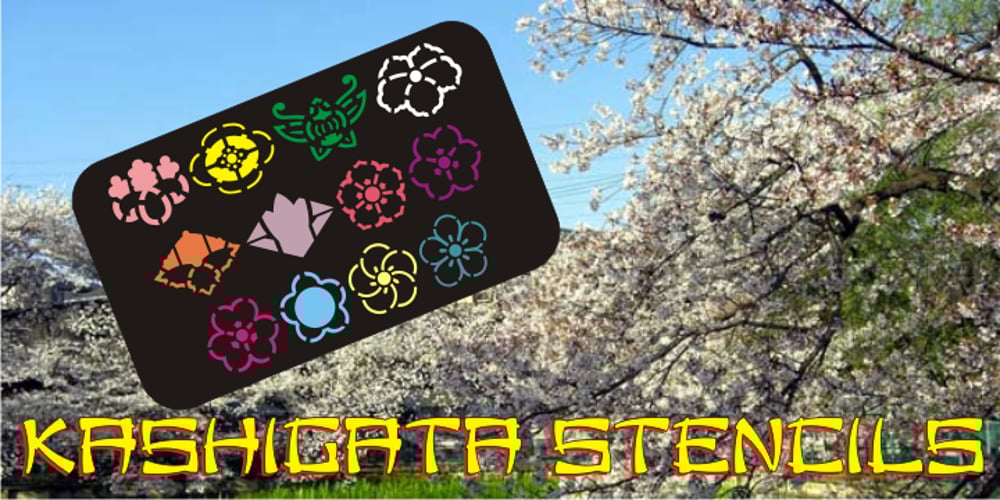
Kashigata Stencils JNL
Kashigata Stencils JNL font
Kashigata Stencils JNL Font Family was designed by Jeff Levine and published by Jeff Levine. Kashigata Stencils JNL contains 1 styles and family package options. Kashigata Stencils JNL is a collection of 52 beautiful Japanese stencil images used for decorating sugar cakes to honor deceased family members with the crest of that family. Re-drawn from images of some vintage stencils spotted at an online craft and collector’s site, these wonderful designs were created during the Showa Period of Japan’s history and bring the charm of the Far East to your creative projects. According to Wikipedia, The Showa period (literally “period of enlightened peace/harmony”), or Showa era, is the period of Japanese history corresponding to the reign of the Showa Emperor, Hirohito, from December 25, 1926, through January 7, 1989.